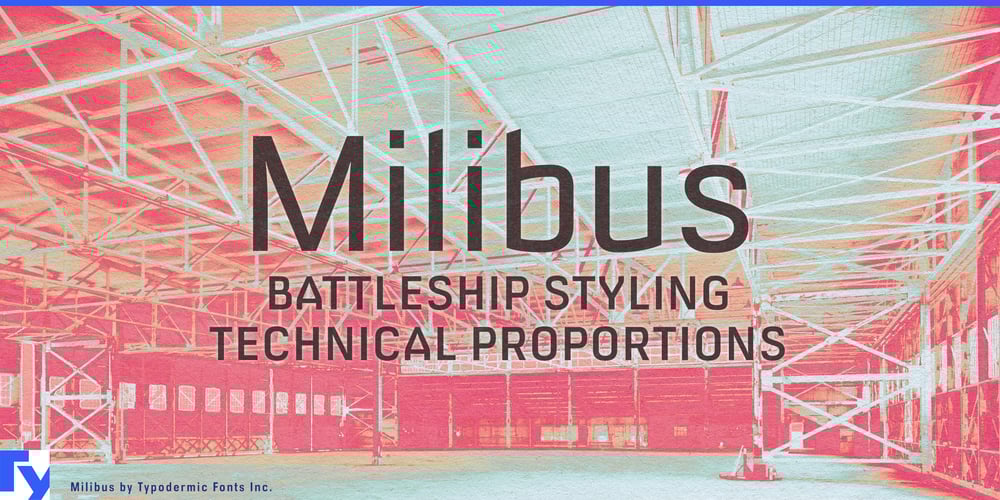
Milibus Font Family was designed by Ray Larabie and published by Typodermic. Milibus contains 7 styles and family package options. Prepare to revolutionize your designs with Milibus, the sans-serif typeface that defies the laws of conventional typography. This groundbreaking typeface isn’t just a collection of letters—it’s a precisely calibrated instrument for visual communication, as meticulously engineered as a particle accelerator.Milibus emerges from the collision of utilitarian alphabets and cutting-edge design, fusing the DNA of DIN’s clarity with the binary precision of 1980s plotter fonts. The result? A typeface that speaks the language of science with the eloquence of art. Its robotic angles aren’t just design choices—they’re calculated vectors, each stroke a trajectory plotted with mathematical perfection. Observe Milibus under the microscope of design scrutiny, and you’ll discover a universe of detail. Its angle-cut stroke endings, reminiscent of industrial typefaces like Expressway, aren’t mere aesthetics—they’re functional elements that enhance readability at the quantum level of typography. Each character is a testament to the principle that form follows function, yet transcends it to achieve a beauty as profound as the golden ratio.But Milibus isn’t content with theoretical excellence—it’s built for practical application across the spectrum of scientific and technical communication. Available in three weights and their italic counterparts, Milibus adapts to your design environment with the flexibility of a stem cell. From academic journals to aerospace schematics, this typeface transmits information with the clarity of a laser and the impact of a supernova. Milibus speaks fluently in the diverse dialects of European languages, its linguistic range spanning from Afrikaans to Zuni. This versatility ensures that whether you’re drafting a paper on astrophysics or designing a user interface for a multilingual research team, Milibus maintains its structural integrity across alphabets and accents.Choose Milibus when your designs demand the precision of a Swiss watch and the innovation of a space probe. In the grand experiment of design, Milibus stands as proof that typography can be both a science and an art, a perfect fusion of logic and creativity.